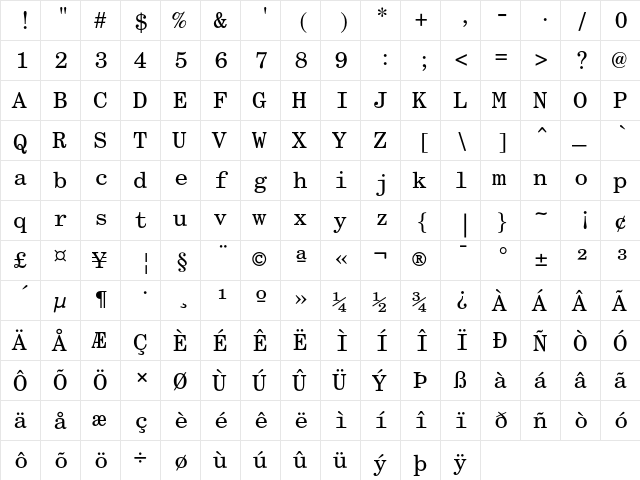
Century Schoolbook Monospace Regular
Design Context for Century Schoolbook Monospace Typeface
Century Schoolbook Monospace brings the precise, column-aligned rhythm of monospaced typography to designs that value technical clarity and systematic order.
Pro Tip: Use Century Schoolbook Monospace with slightly increased line-height for extended reading — fixed-width spacing can feel dense in longer passages without extra breathing room.